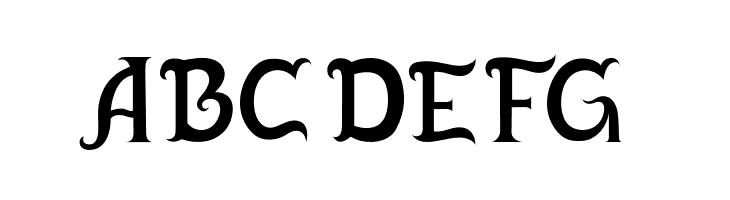
SF Quartzite Bold Oblique Font
A bold, oblique sans-serif font with a dynamic and modern style.
Larke Neue Regular Font
A modern, clean sans-serif typeface with excellent readability.
Coliseum Normal Font
A bold, dramatic font with strong, wide strokes and a slightly condensed appearance.
Probert Bold Font